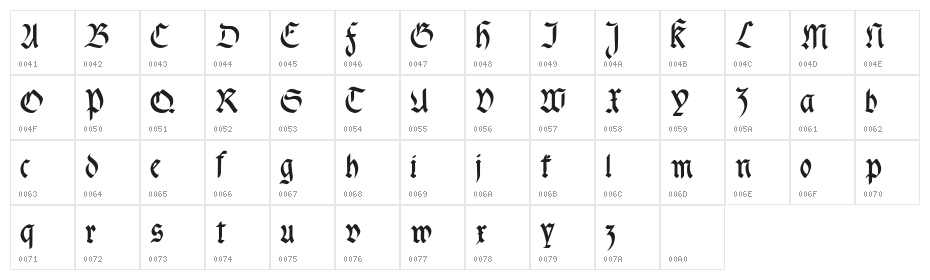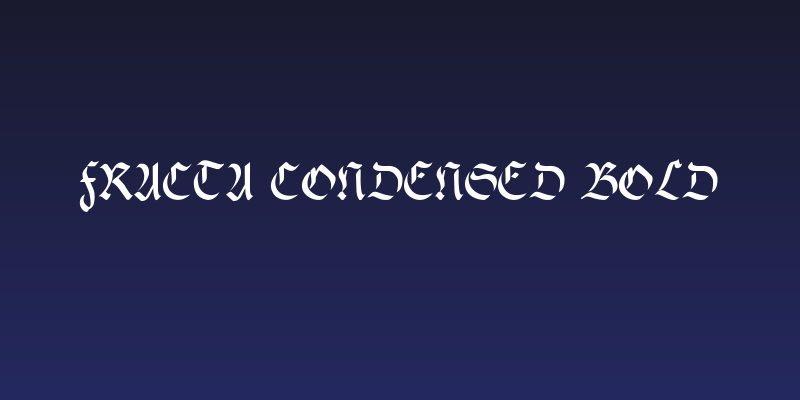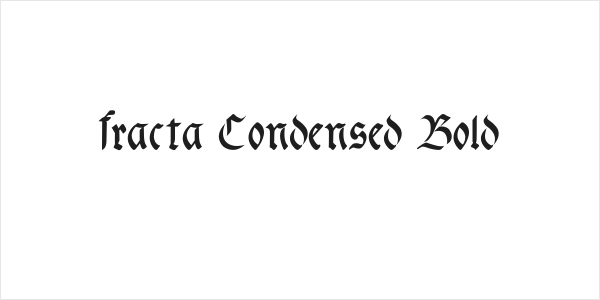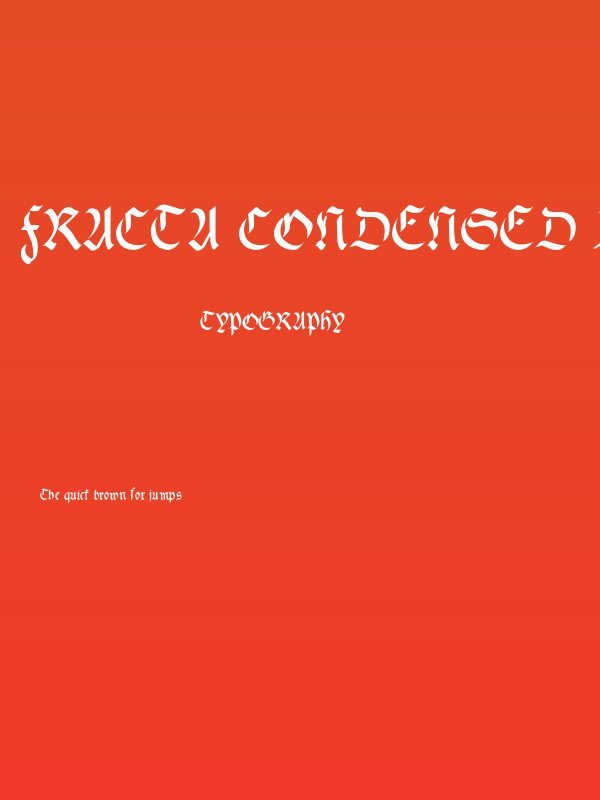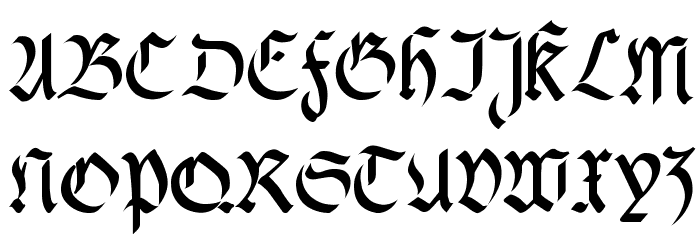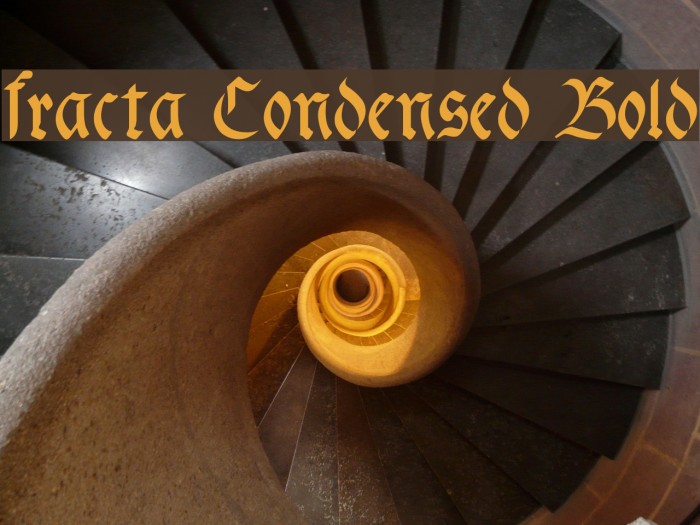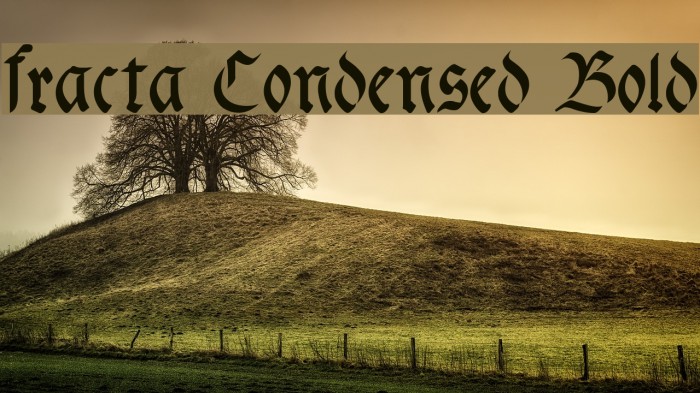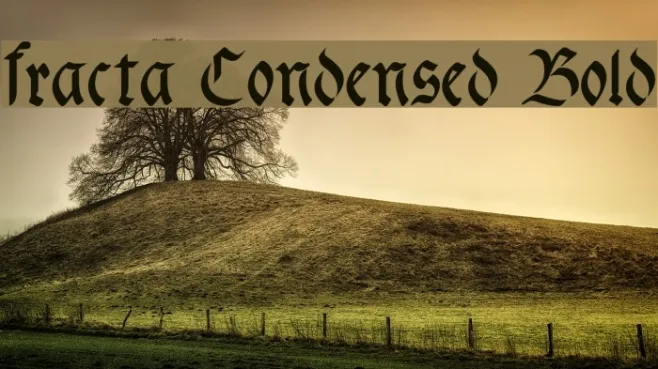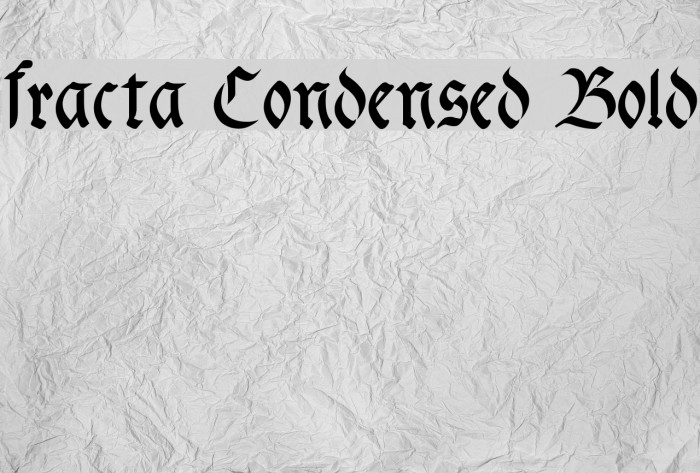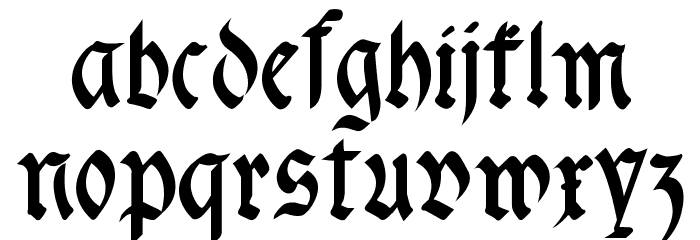
fracta Condensed Bold Font
fracta Condensed Bold Description
This font exhibits a traditional blackletter style, characterized by its intricate and ornate letterforms. The strokes are bold and sharply defined, with a condensed structure that gives it a compact appearance. The uppercase letters are particularly elaborate, featuring dramatic flourishes and angular lines that evoke a sense of historical elegance. The lowercase letters maintain the same level of detail, with distinctive curves and pointed terminals. This font is reminiscent of medieval manuscripts and Gothic architecture, making it ideal for projects that require a touch of antiquity and sophistication.
| Proposed Projects | Ideal for historical themed designs, book covers, posters, and branding that requires a classic or medieval touch. |